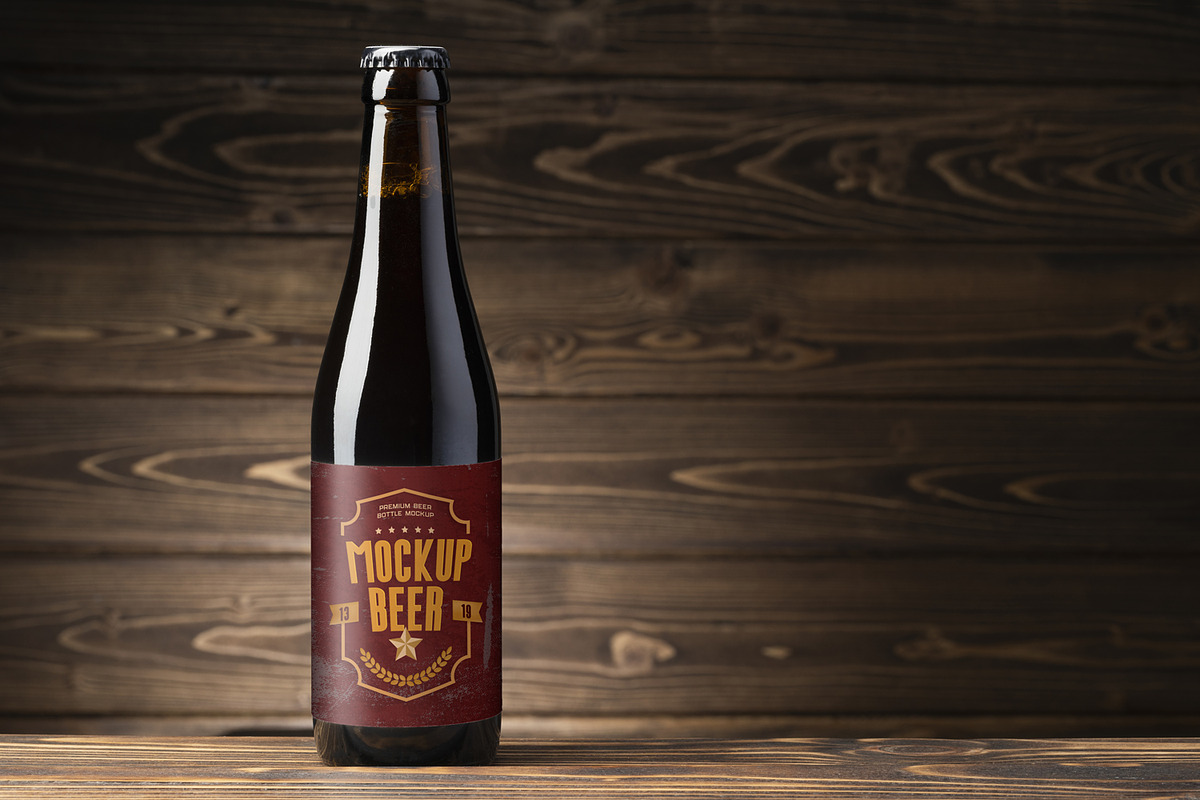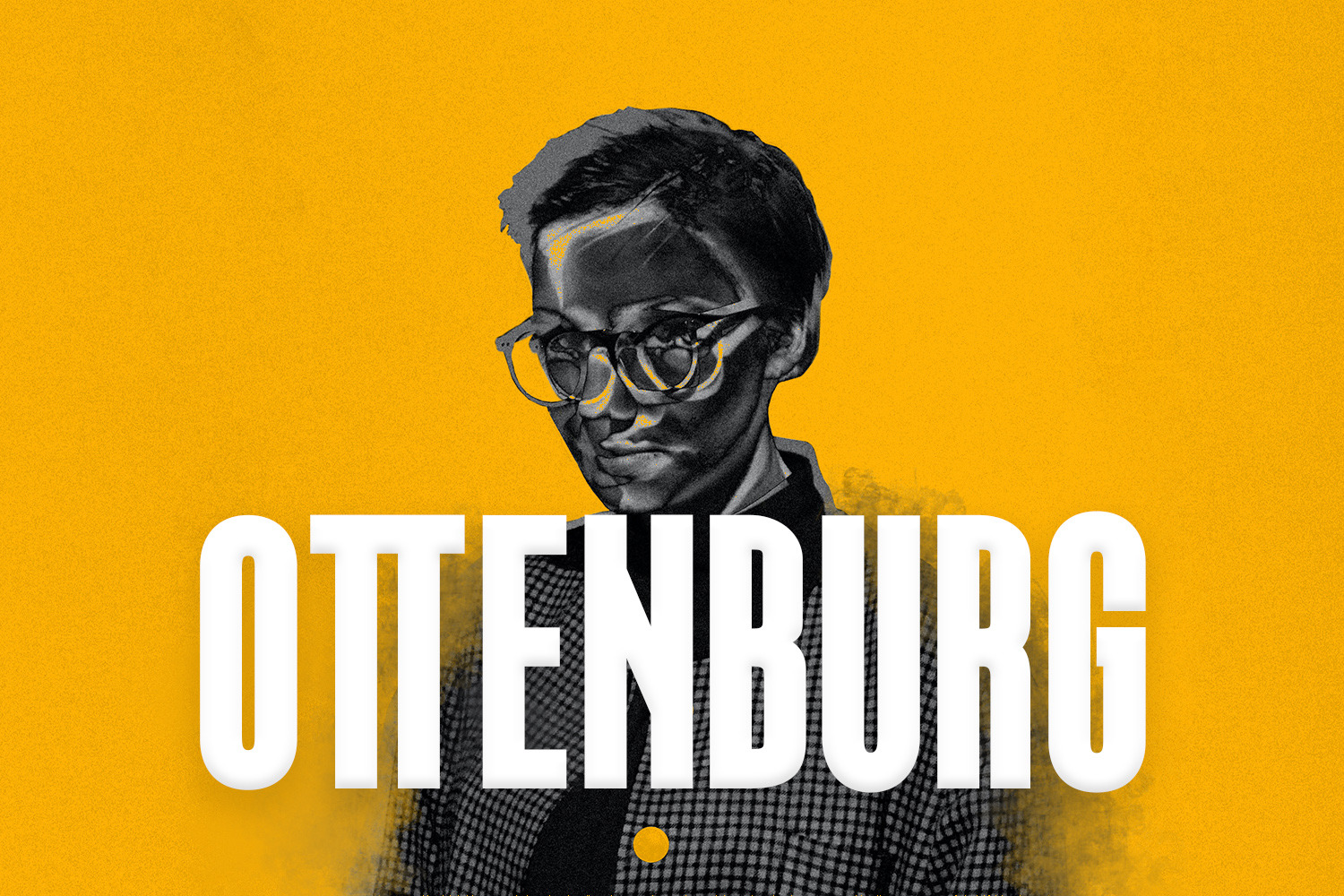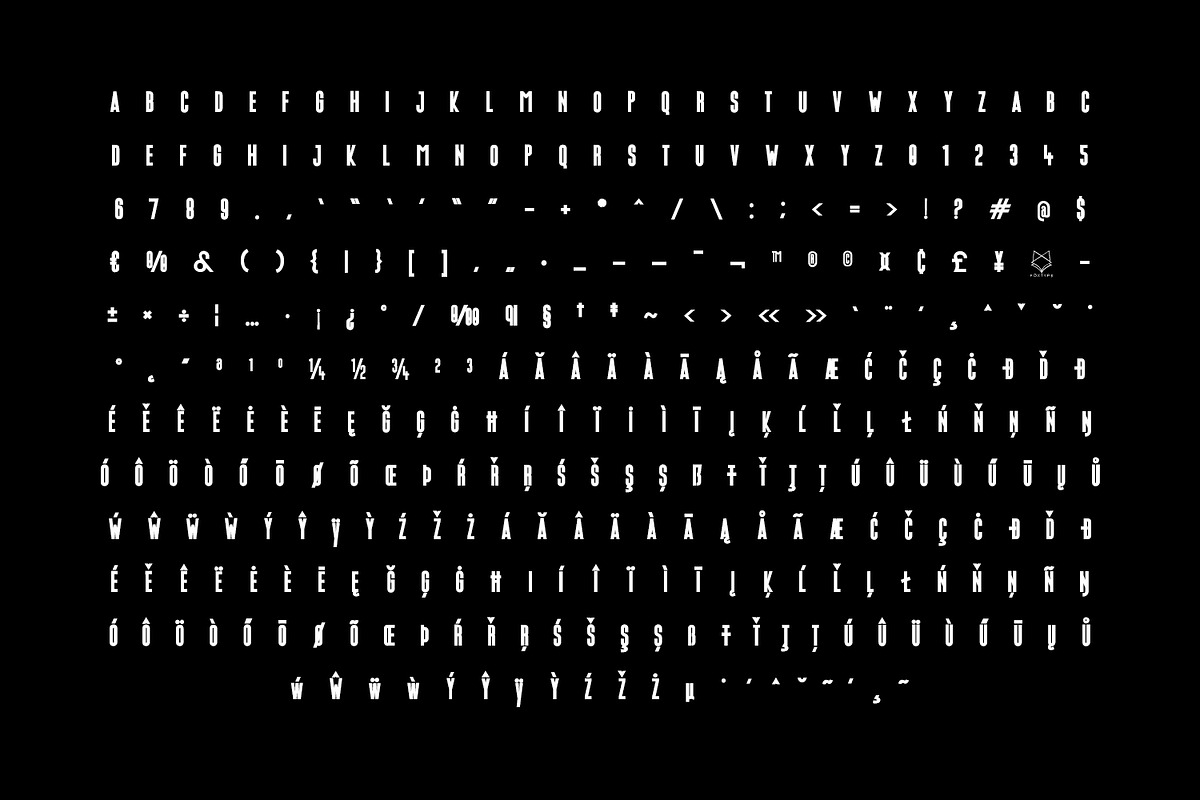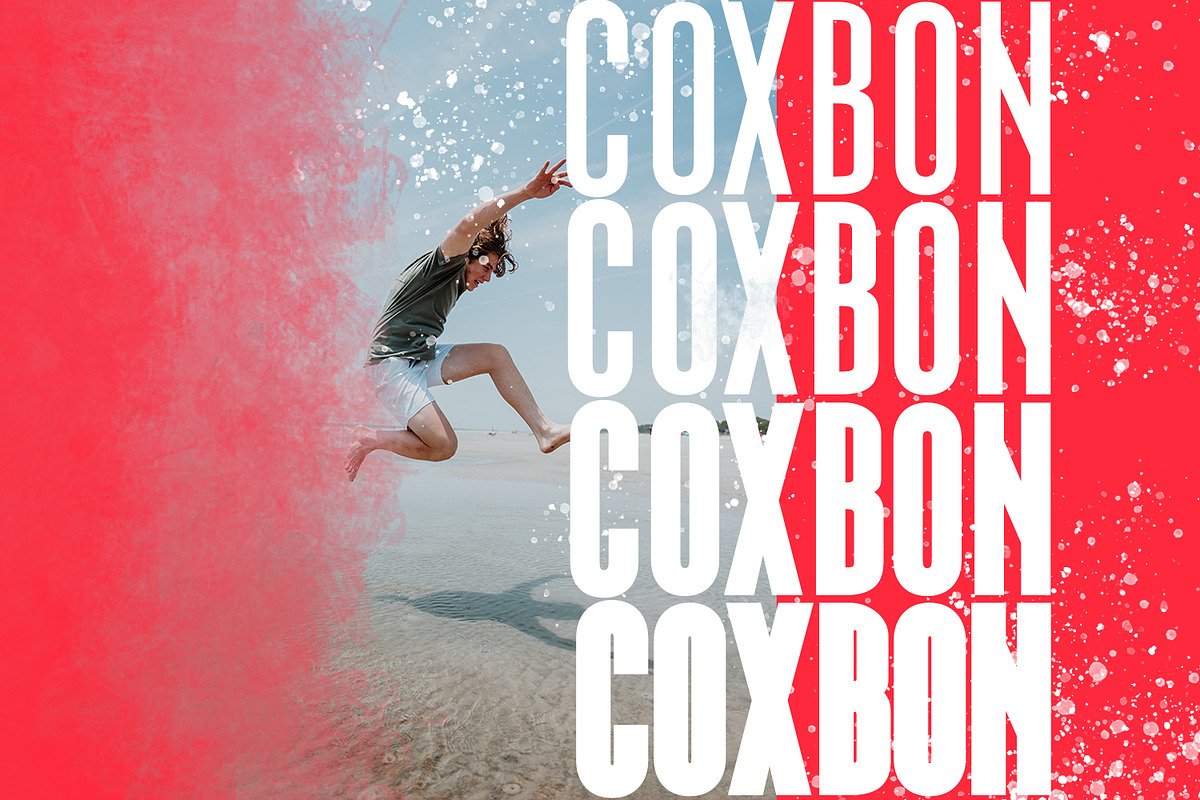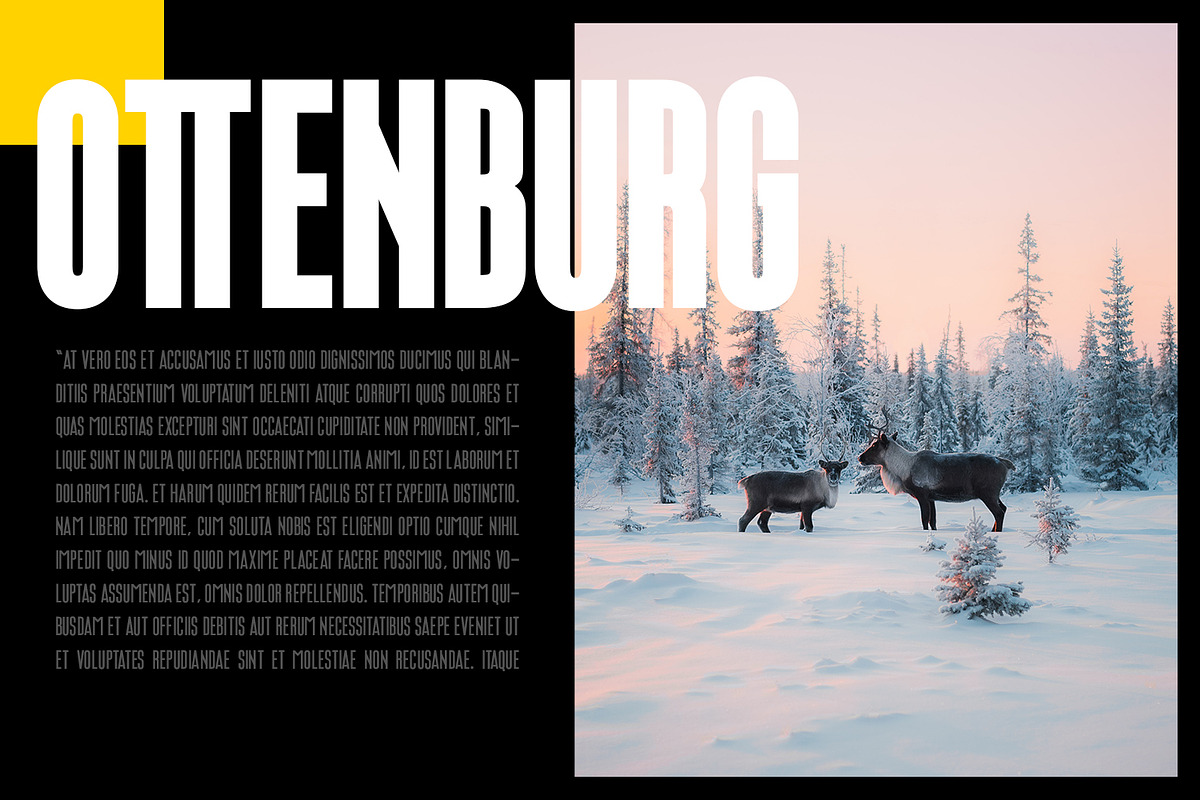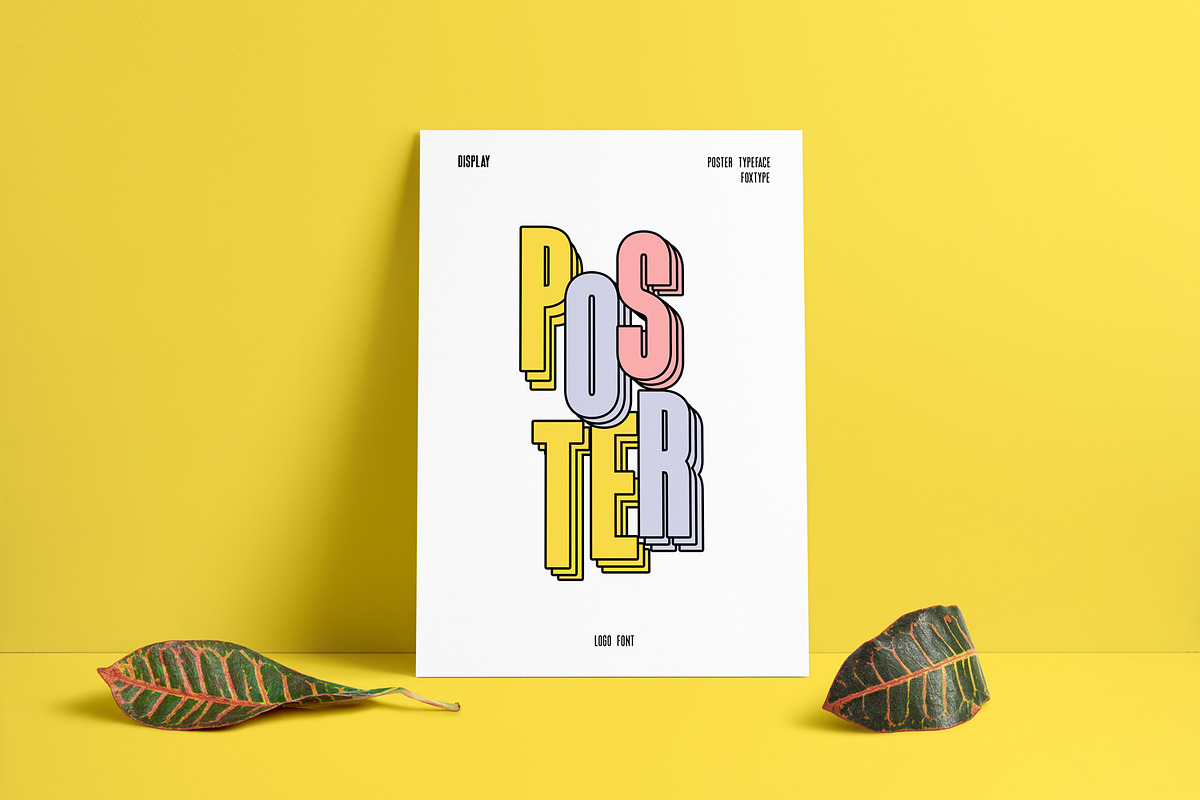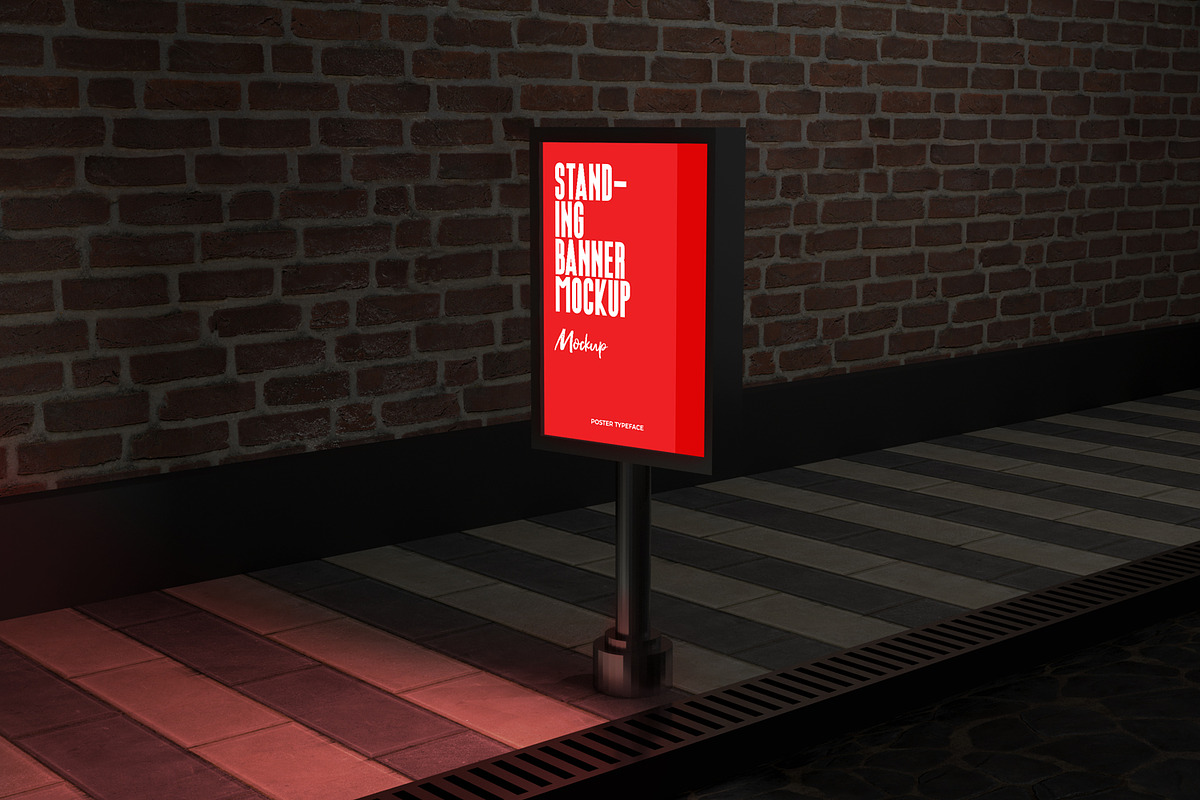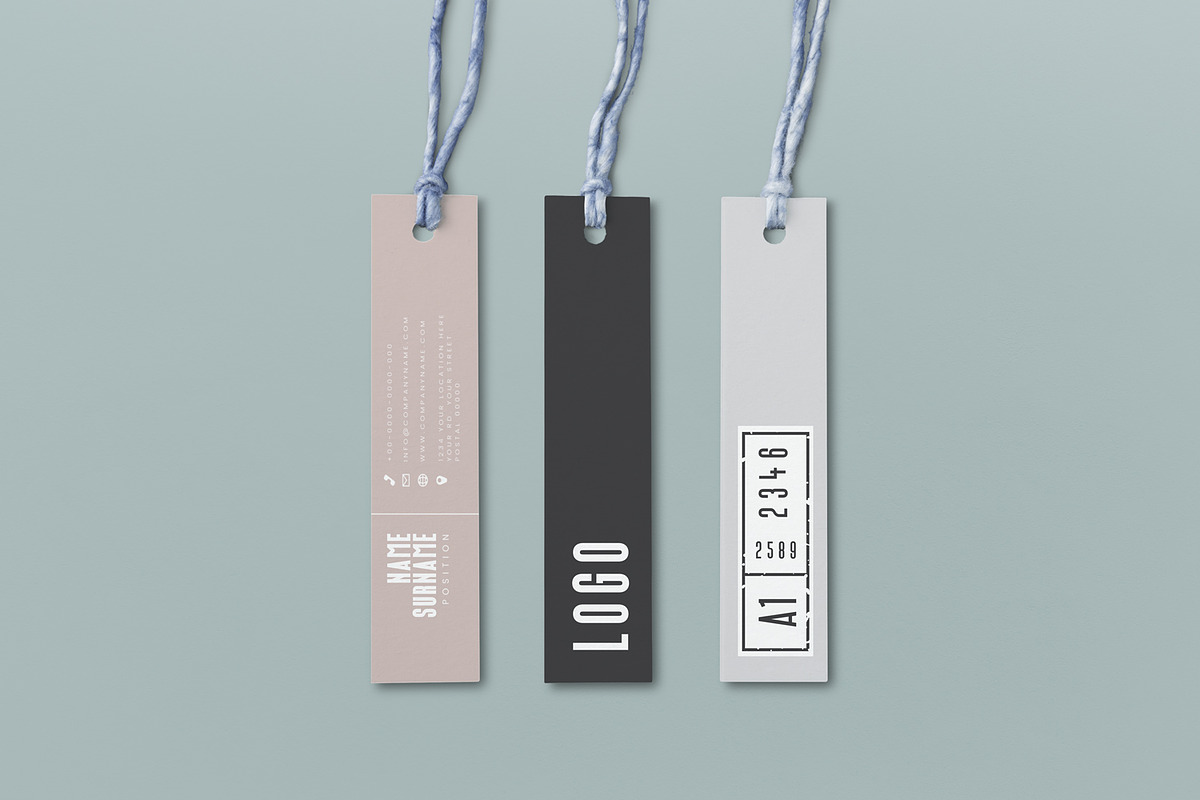
Ottenburg Display Typeface
Ottenburg Display is a Brand New Elegant Typeface with a powerful font family. It has a dependable and uncompromising style, with controlled letterforms and modern touches. It looks amazing in logos, magazines, and movies. Ottenburg Font would be perfect for branding, headlines, Captions, paragraphs, and posters. The various weights allow you to experiment with a wide range of applications. It's created to make an impression without sacrificing its beauty and readability. It's shown a clean, minimalist, warmth, quirky, yet still purposed to be versatile
The Typeface includes four Weights - Regular, Medium, SemiBold, and Bold.
- All offer wide language support
- numerals and extended punctuation.